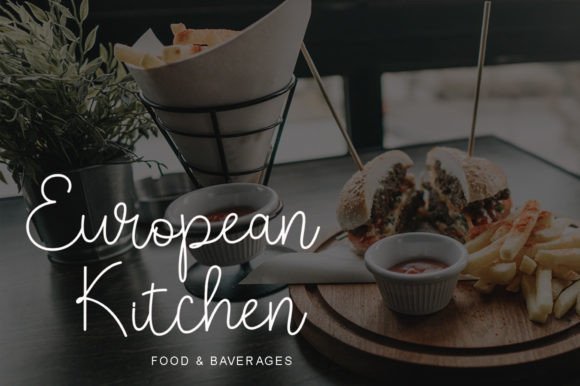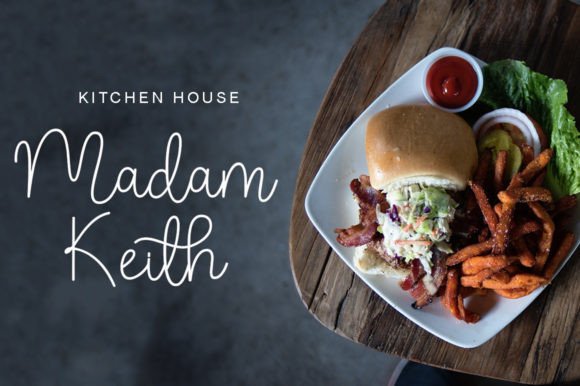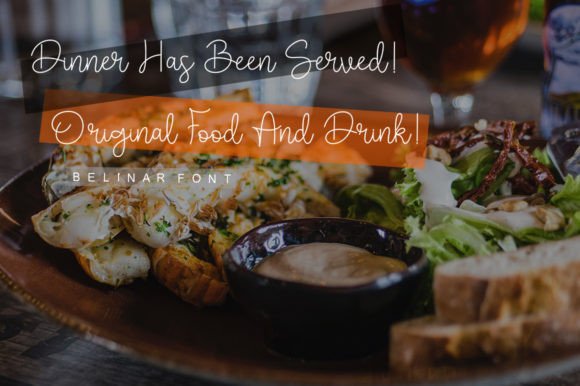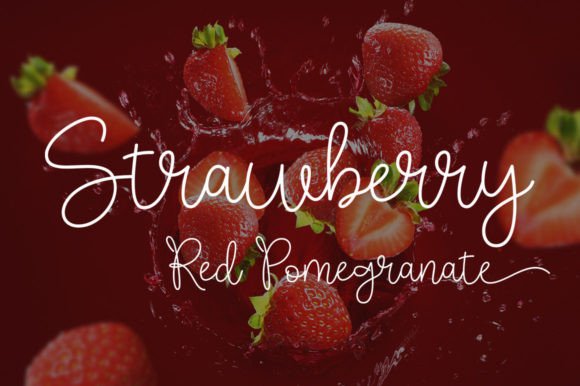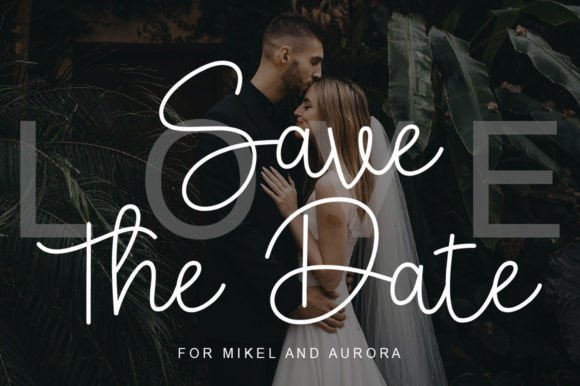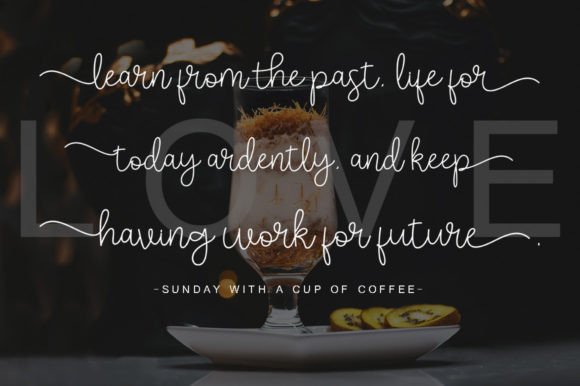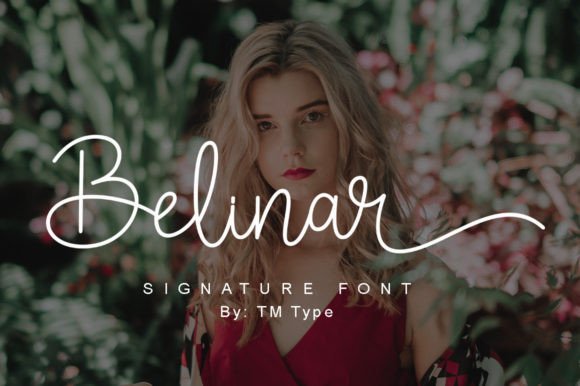
Introducing Belinar Font: Elevate Your Design with Elegance and Sophistication
In the world of typography, a well-crafted font can make all the difference in transforming a design from ordinary to extraordinary. For designers and crafters seeking to infuse their work with a touch of class and style, Belinar Font is an exceptional choice. This sleek, signature script font is designed to bring an instant sense of sophistication and elegance to any project.
What is Belinar Font?
Belinar Font is a modern, handwritten script typeface that exudes luxury and refinement. Its fluid strokes and carefully crafted letterforms make it an ideal choice for projects that demand a personal, high-end feel. Whether you’re working on branding, logos, signatures, invitations, or any other design that requires a touch of elegance, Belinar Font is the perfect solution.
Key Features of Belinar Font
- Sleek and Modern Design: Belinar Font boasts a contemporary, sleek design that is sure to turn heads. Its clean lines and flowing script make it perfect for designs that require a touch of sophistication.
- Signature Style: This font is designed to mimic the look and feel of a signature, making it ideal for logos, branding, and other applications where a personal touch is desired.
- Highly Versatile: Belinar Font can be used across a wide range of design applications, from digital projects to print materials.
- Easy to Read: Despite its elegant and cursive nature, Belinar Font remains highly legible, making it suitable for both headlines and body text.
Use Cases for Belinar Font
Belinar Font’s versatility and elegance make it suitable for a variety of design projects. Here are some of the most popular use cases:
- Branding and Logos: Create a lasting impression with a logo that exudes class and sophistication. Belinar Font is perfect for businesses looking to establish a premium brand image.
- Invitations and Event Design: Add a touch of elegance to your event invitations, wedding cards, or any other formal invitation with Belinar Font.
- Signatures and Letterheads: Elevate your professional or personal correspondence with a beautifully designed signature that stands out.
- Packaging and Product Design: Use Belinar Font to add a luxurious touch to your product packaging, making it more appealing to customers.
Why Choose Belinar Font?
With so many fonts available, why should you choose Belinar Font for your next project? Here are a few compelling reasons:
- Unique and Distinctive: Belinar Font offers a unique style that sets it apart from more traditional fonts, ensuring your design stands out.
- Time-Saving: With Belinar Font, you can achieve professional-looking results without spending hours on custom lettering.
Tips for Using Belinar Font Effectively
To get the most out of Belinar Font, consider the following tips:
- Pair with Complementary Fonts: Combine Belinar Font with simpler, sans-serif fonts for contrast and visual interest.
- Adjust Letter Spacing: For a more customized look, experiment with letter spacing to achieve the perfect balance.
- Use it Sparingly: While Belinar Font is elegant, using it sparingly can make it more impactful. Consider using it for headlines or key messages.
| Font Name | Belinar Font |
| Author | TM Type |
Belinar Font is a powerful tool for designers and crafters looking to add a touch of elegance and sophistication to their work. With its sleek design, versatility, and ease of use, it’s an excellent choice for a wide range of projects. By incorporating Belinar Font into your design toolkit, you’ll be able to create stunning, high-end designs that leave a lasting impression.